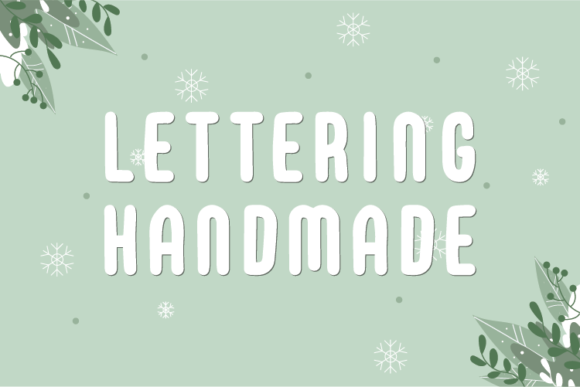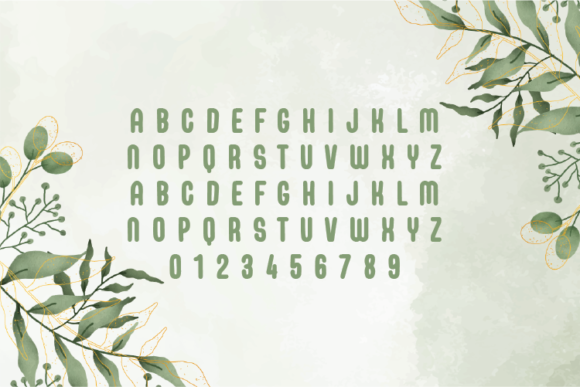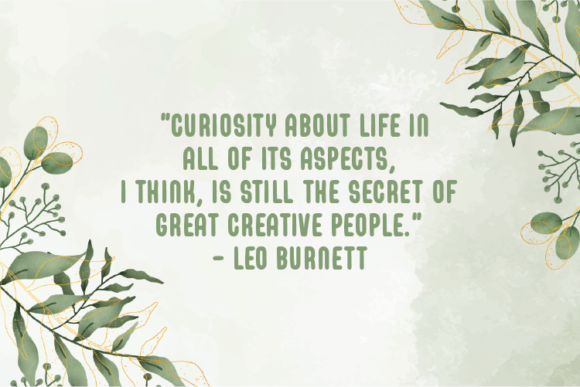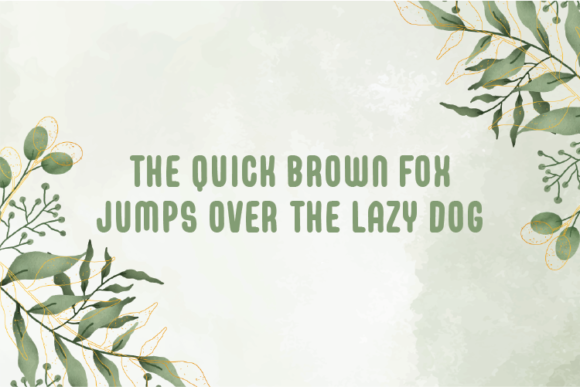
Lettering Handmade Font
About the Lettering Handmade Font
The wait is over! The incredible Lettering Handmade Font is now available for your design toolkit. Lettering Handmade is a lovely display font created without changing a single node in each character’s indentation. This makes it very interesting and unique. This font is perfect for quotes, notes, tees, and any product design.
Its handcrafted nature makes Lettering Handmade ideal for projects requiring a personal touch, such as logos for boutiques, artisanal food brands, or wedding invitations. It excels in headlines, short quotes, and packaging where its unique character can shine. However, its intricate details make it unsuitable for body text or UI elements; readability suffers at smaller sizes.
Consider pairing Lettering Handmade with a clean sans-serif like Montserrat for a modern contrast, or a classic serif like Garamond for a more traditional feel. A playful script font, such as Pacifico, could also work well for supporting text, enhancing the handmade aesthetic.
The font projects a warm, friendly, and slightly whimsical personality, best suited for brands emphasizing authenticity and craftsmanship. Avoid using it for projects requiring a highly professional or minimalist aesthetic.
Lettering Handmade Font Usage Examples
Lettering Handmade Font Example